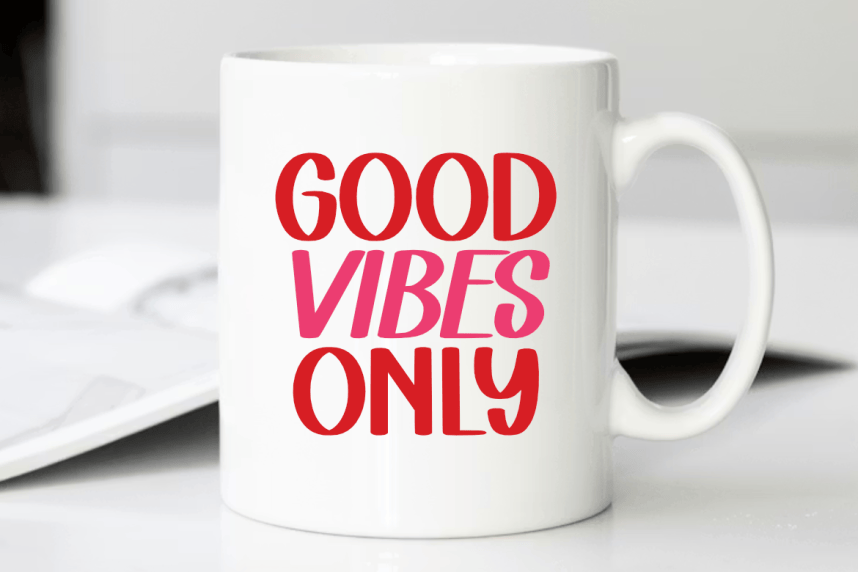
Stupid Cupid – Playful Handwriting Font
Stupid Cupid – Playful Handwriting Font is a playful, romantic, and modern handwriting display font inspired by whimsical doodles and the cheeky, lighthearted spirit of contemporary Valentine designs. Featuring organic strokes and a charming heart-shaped accent, this typeface is crafted to bring a touch of sweet personality and hand-drawn warmth to your creative projects.
This font is a must-have for creators in the Craft, POD (Print On Demand), and DIY communities. Its clean, expressive lines make it incredibly versatile for both digital designs and physical products, ensuring a smooth experience for cutting and printing.
Perfect for: creating eye-catching t-shirt designs, sassy Valentine’s Day stickers, heartfelt greeting cards, personalized mugs, wedding stationery, social media quotes, nursery wall art, and boutique branding. It also works beautifully for sublimation projects and digital scrapbooking layouts.